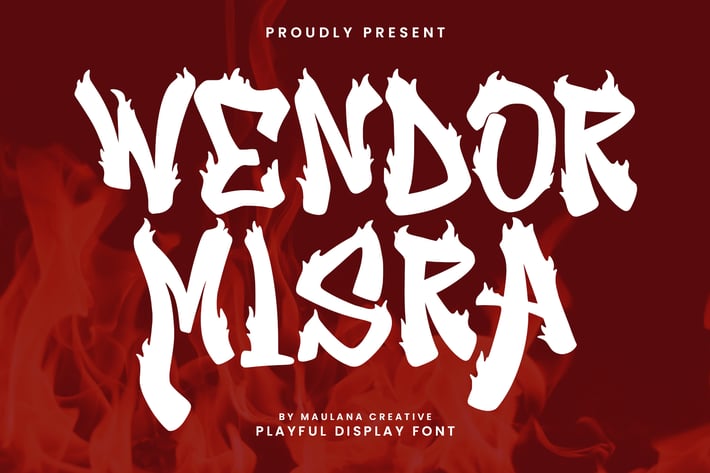
Wendor Misra Fire Display Font
Wendor Misra fire display font. Bold stroke, fun character with a bit of ligatures and alternates. To give you an extra creative work. Wendor Misra font support multilingual more than 100+ language. This font is good for logo design, Social media, Movie Titles, Books Titles, a short text even a long text letter and good for your secondary text font with script or serif. Make a stunning work with Wendor Misra fire display font.